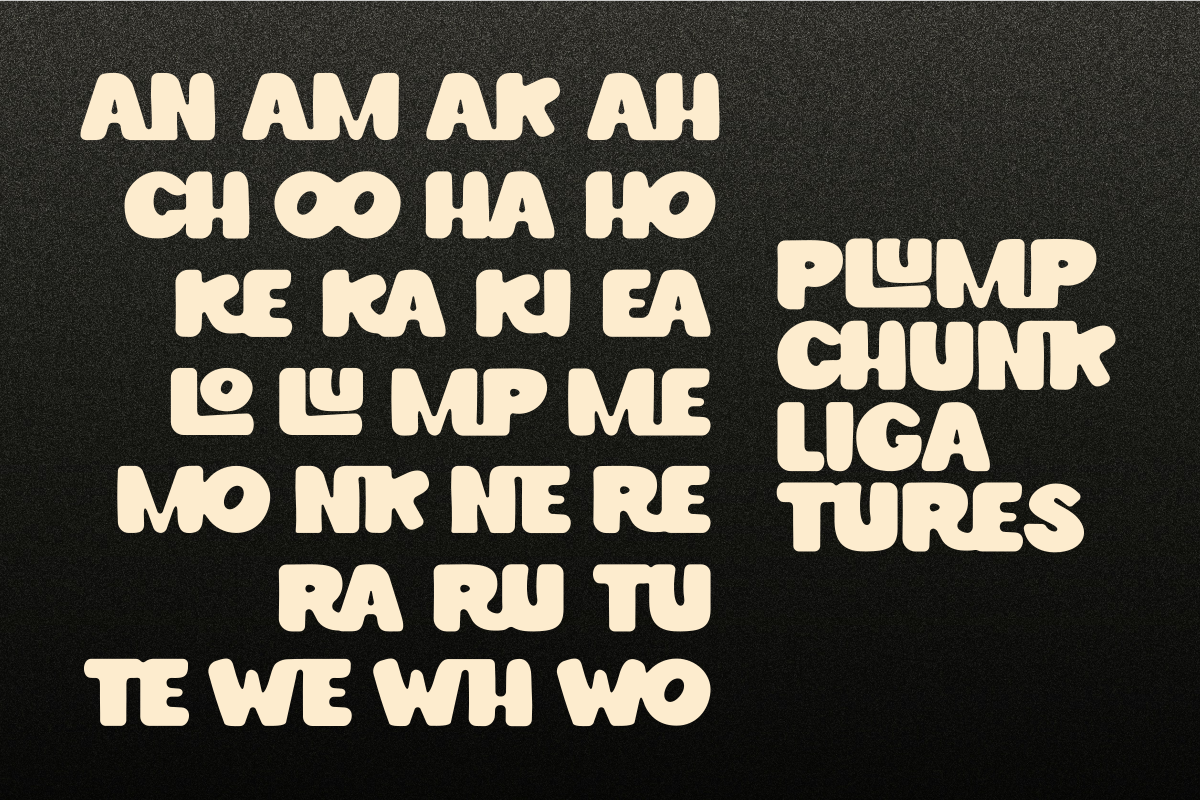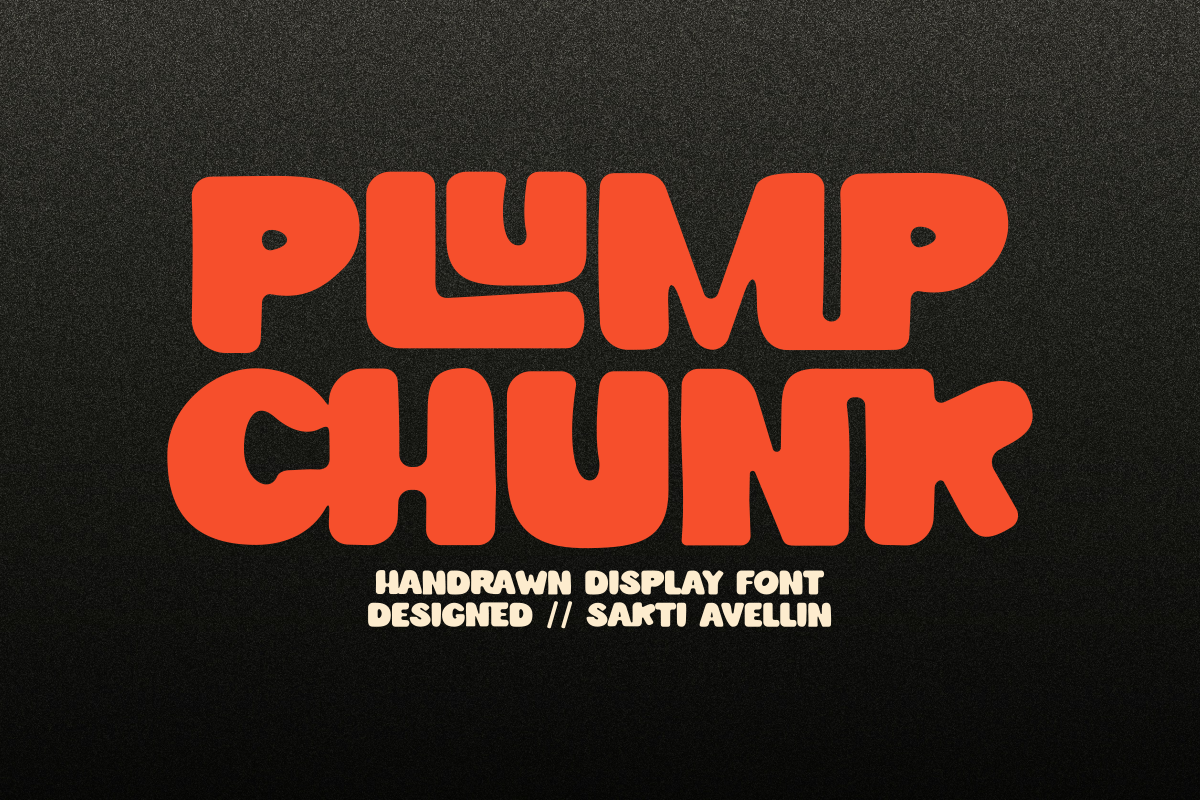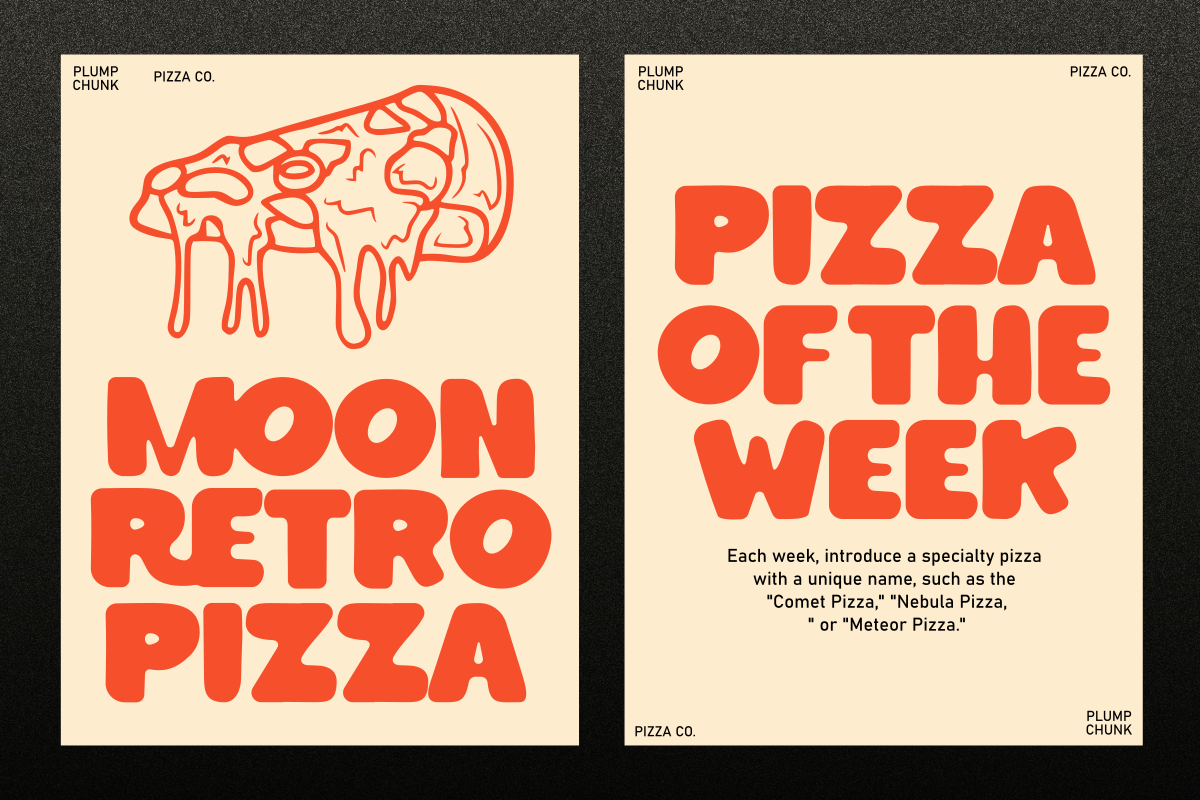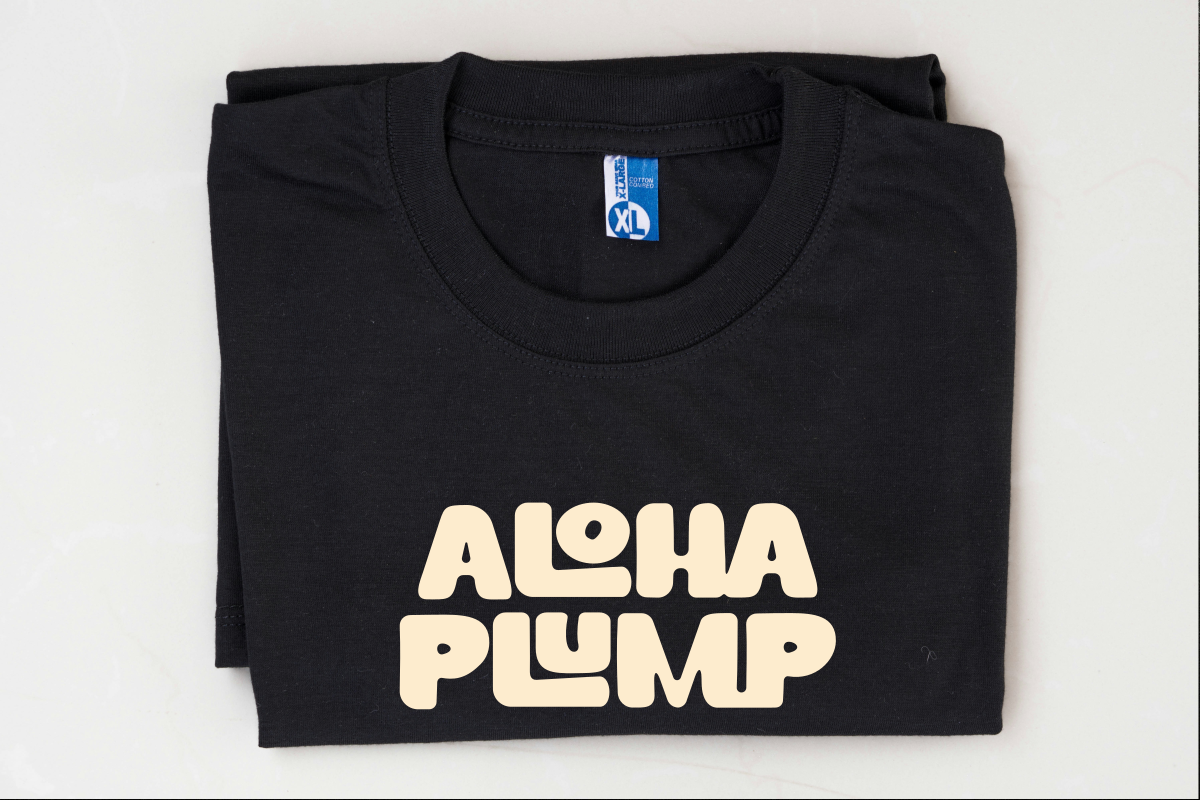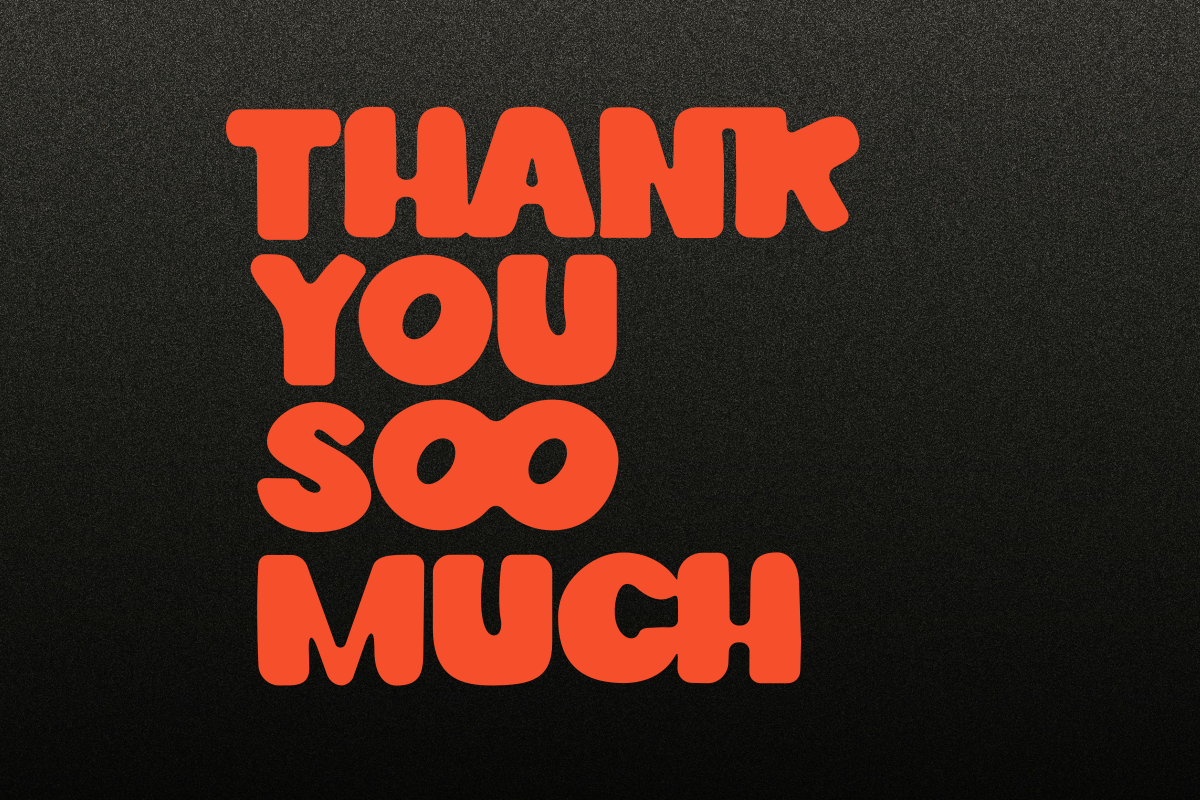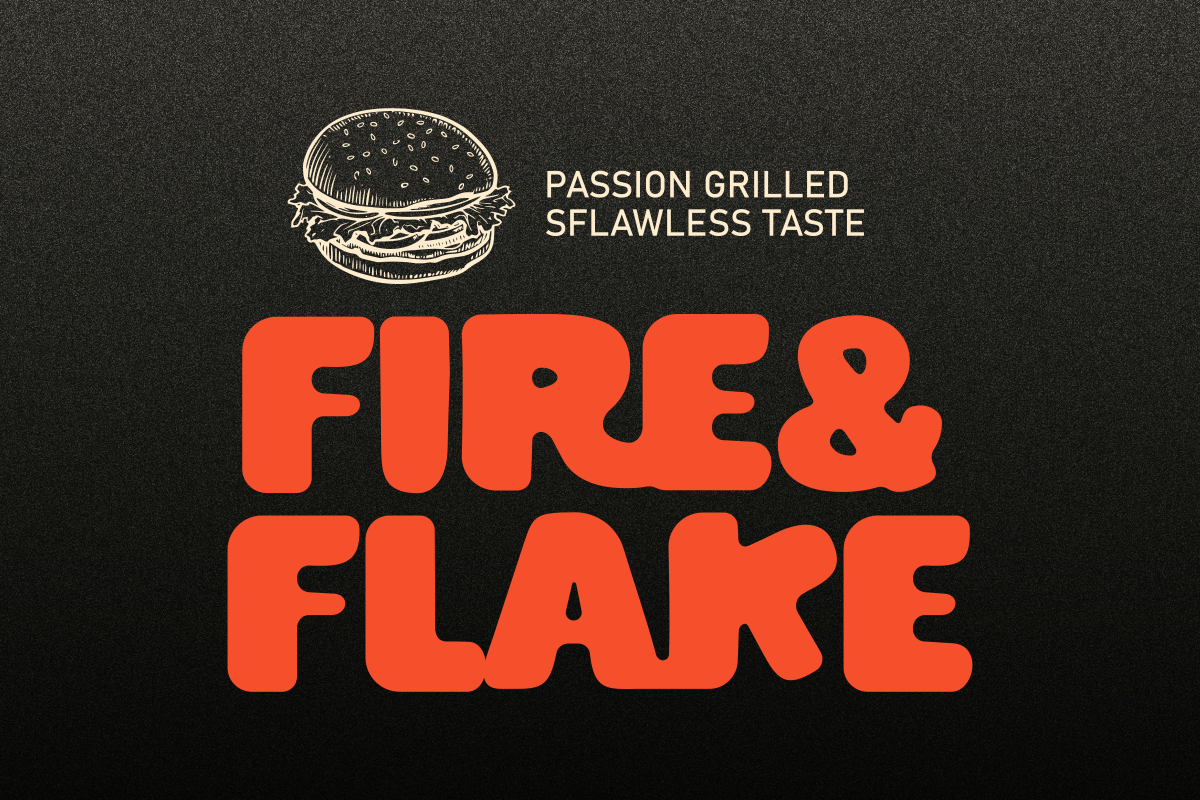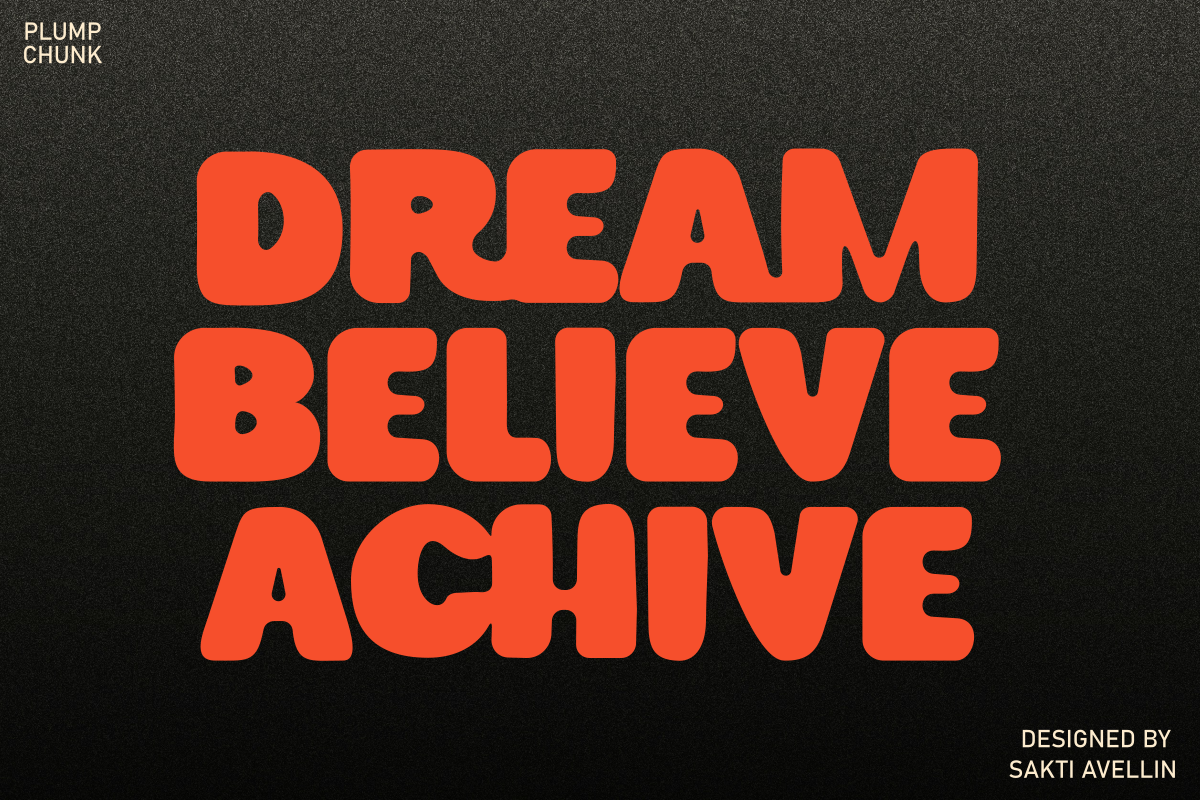
Plump Chunk - Display Font
Plump Chunk is a bold and high-impact handdrawn display font designed to give your creative projects a powerful and playful presence. This chunky typeface features thick, rounded letterforms with an organic, handcrafted feel, making it an excellent choice for bold branding, eye-catching posters, funky apparel designs, and standout social media graphics. Its heavy weight and slightly irregular silhouette ensure your headlines pop with a modern, groovy energy. Perfect for designers looking to create a big statement, Plump Chunk brings a fun and solid aesthetic to every design.